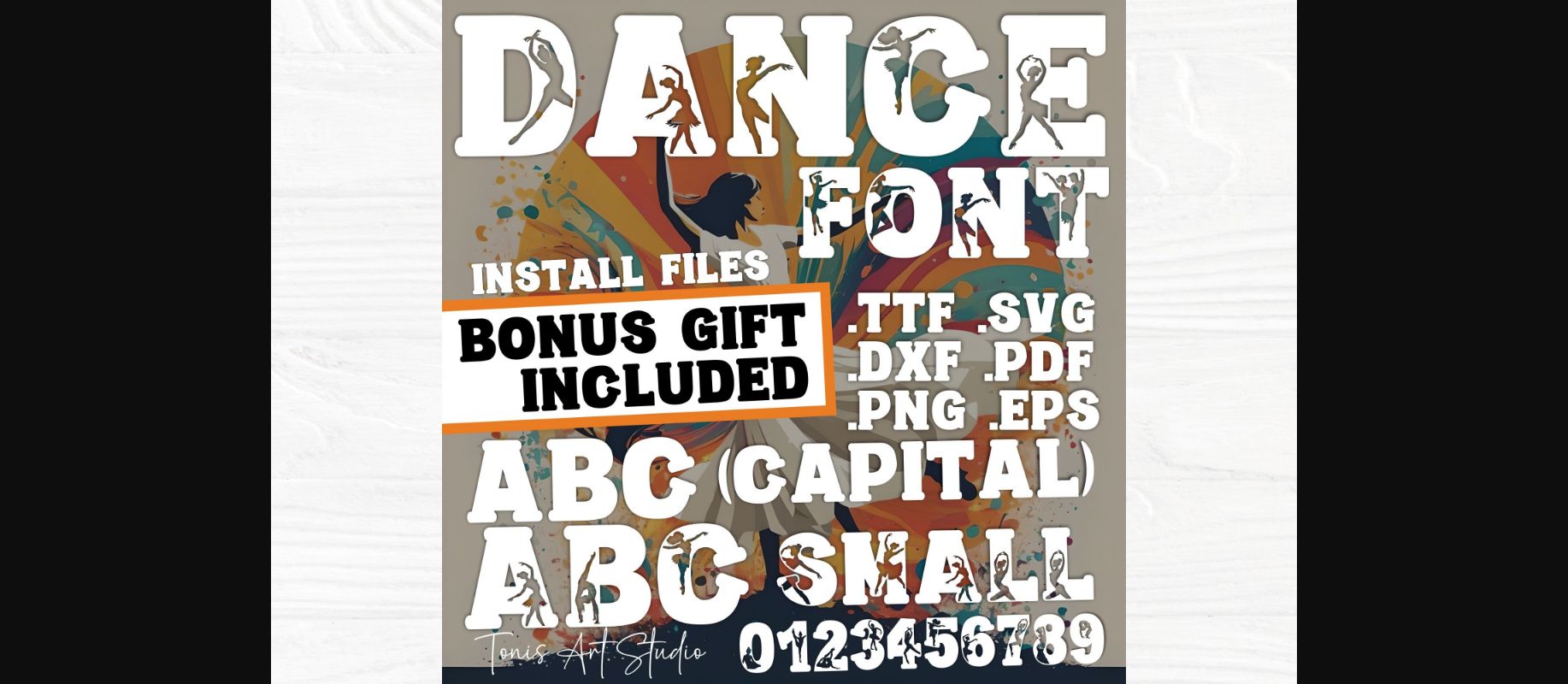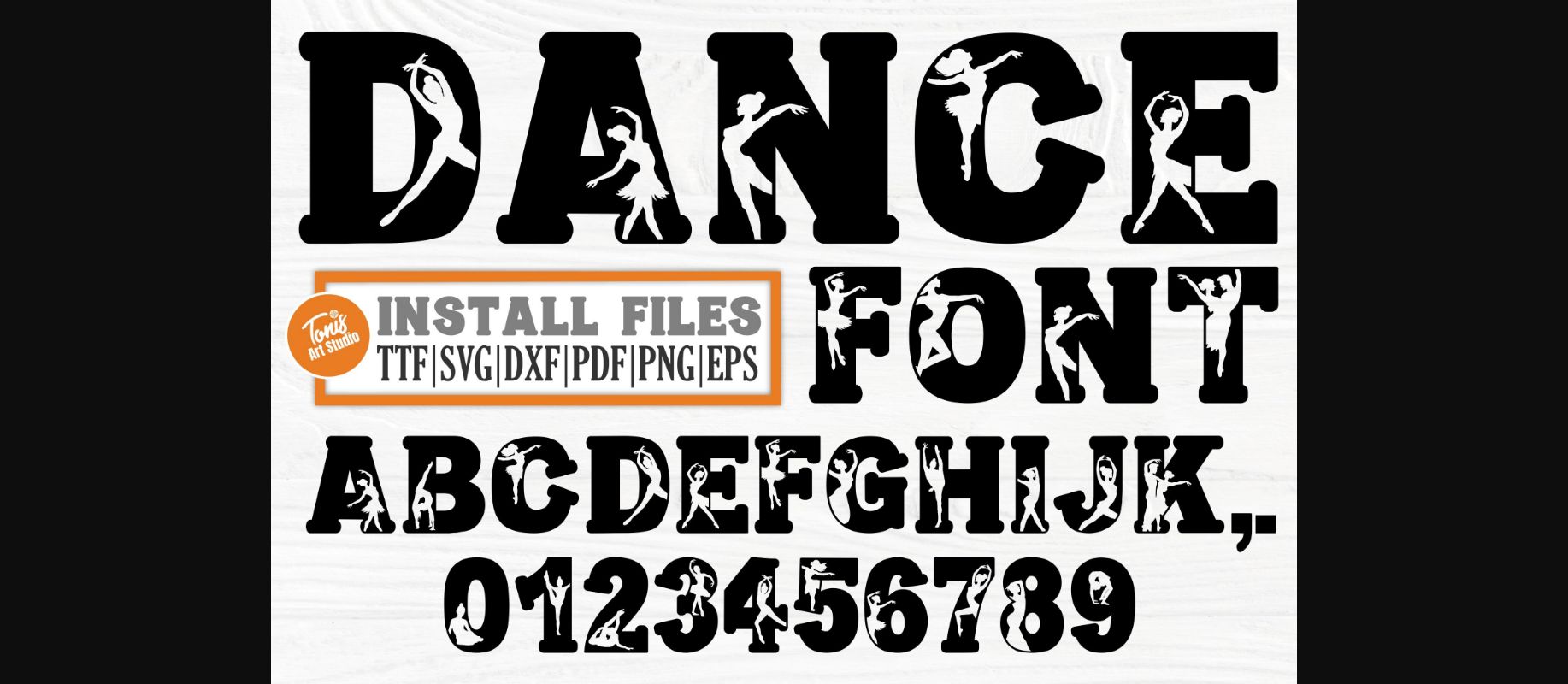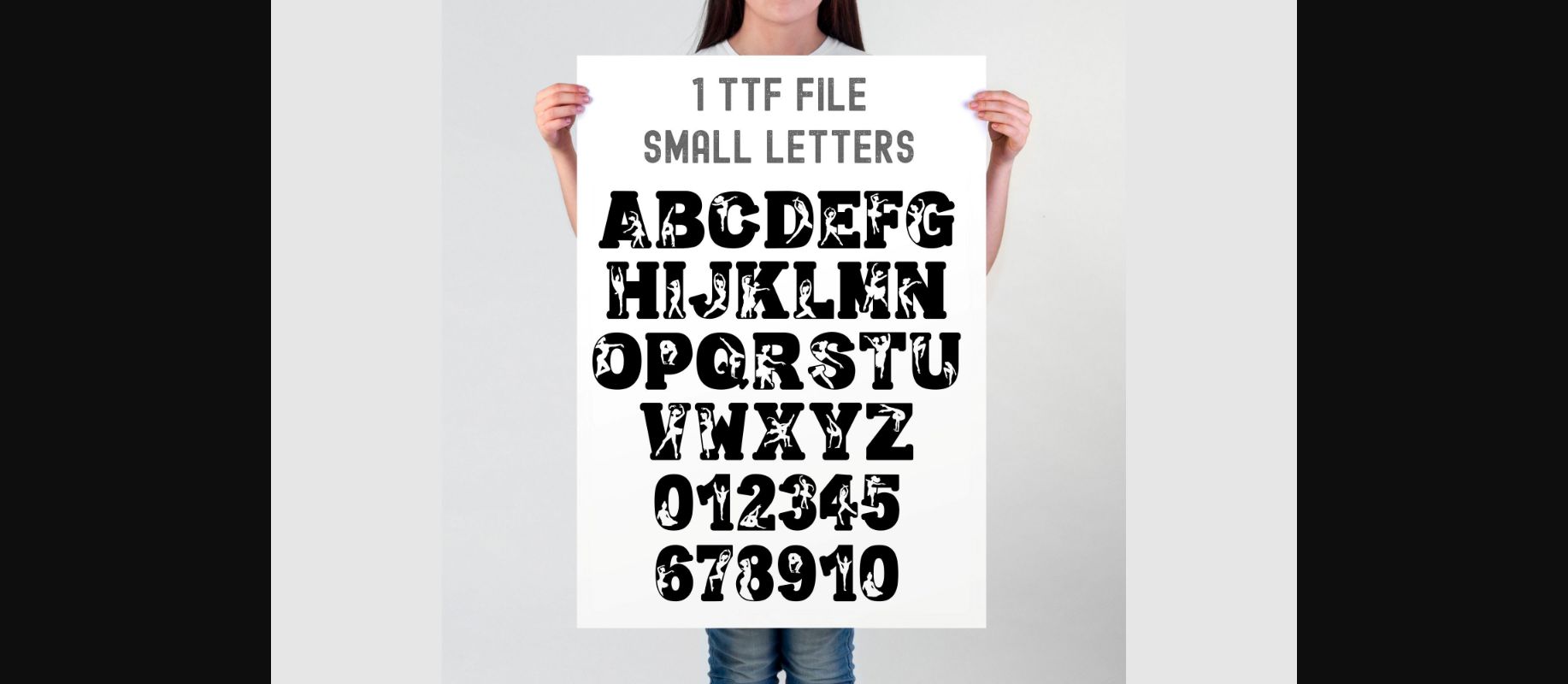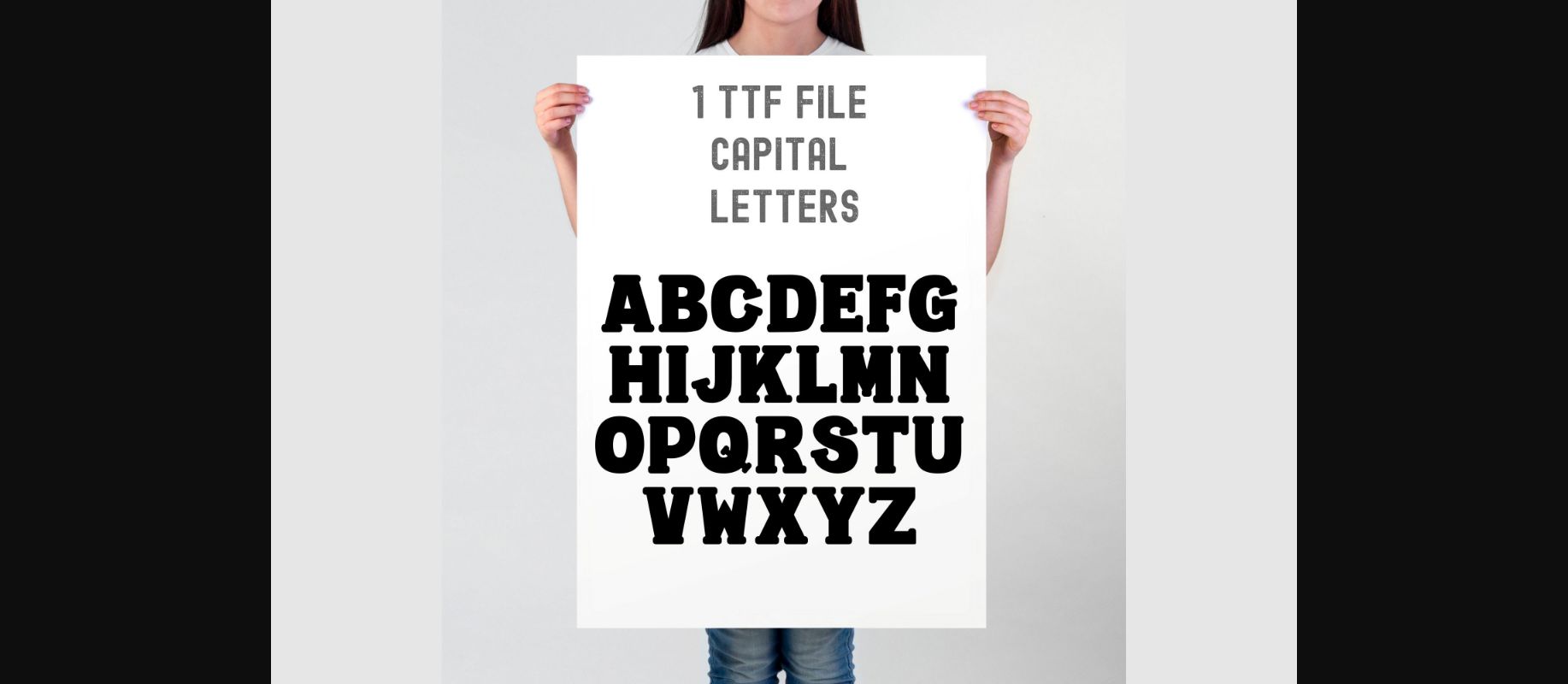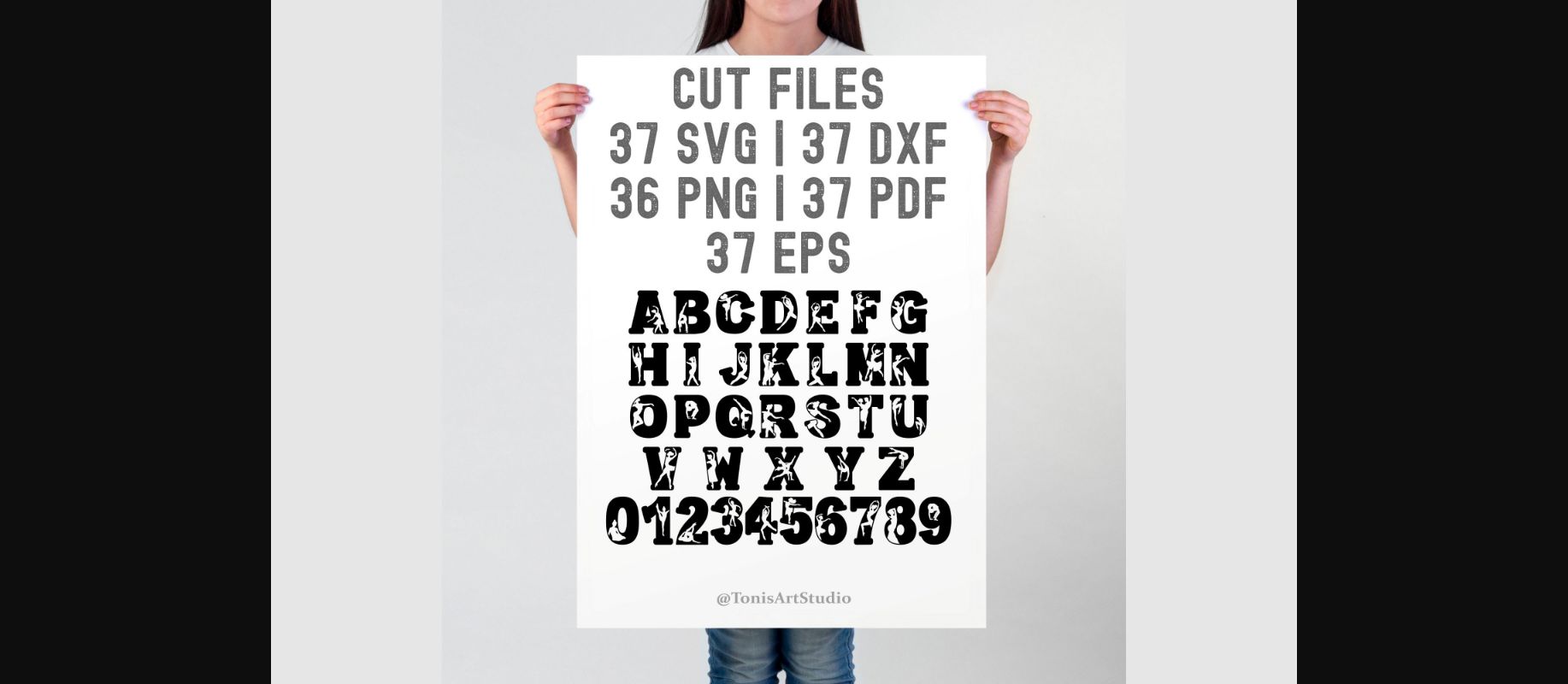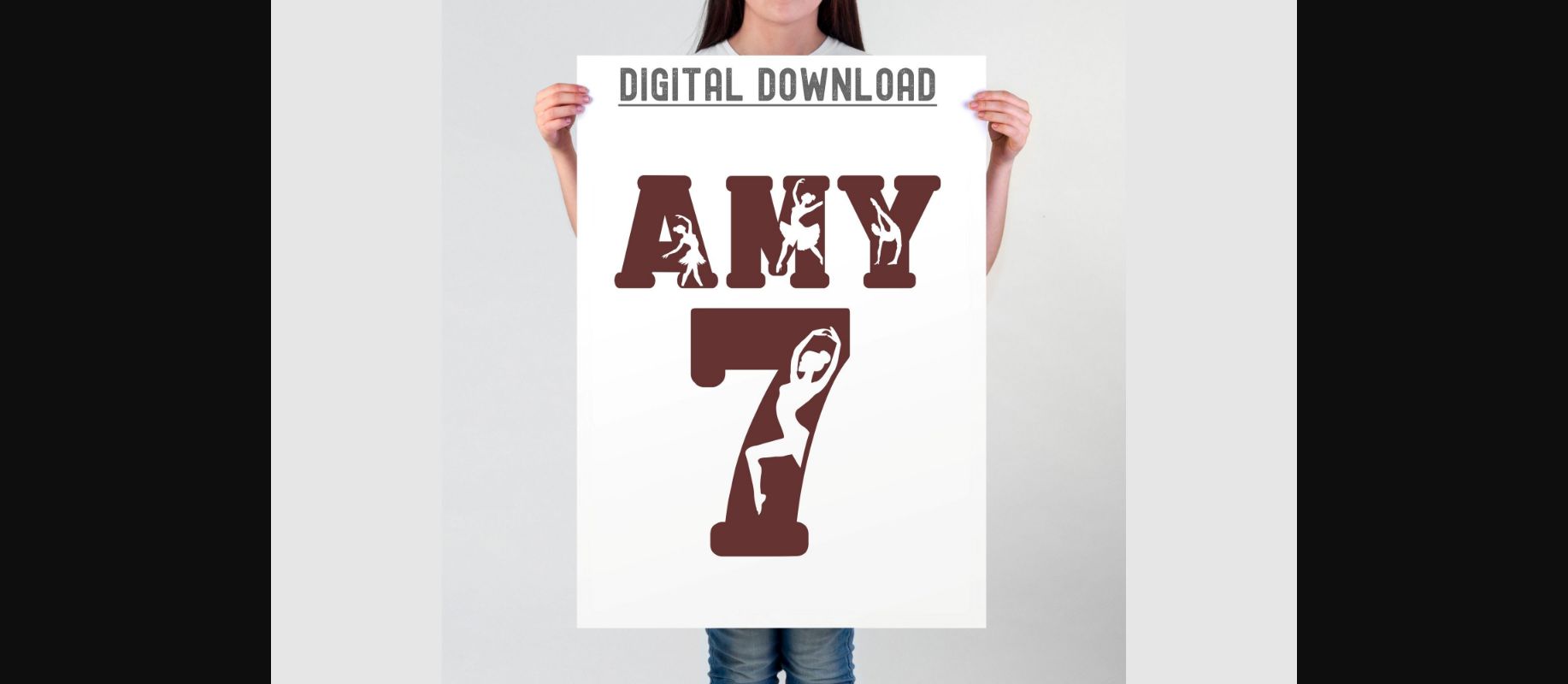
Dance Font
About Dance Font
Transform your crafting projects with this stunning Dance Font Alphabet Svg. Perfect for dance enthusiasts, this collection includes Dancing Letters Svg, Dancer Silhouette Svg, and Monogram Svg Files. Add a touch of elegance and movement to your creations with these versatile designs. Whether you’re looking to personalize gifts or decorate your space, this Dance font Svg is sure to inspire creativity and style. Elevate your projects with this unique and dynamic set of digital files today!